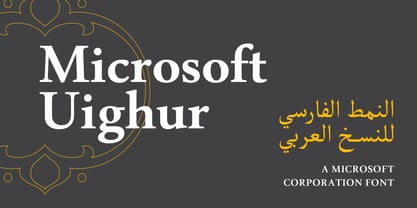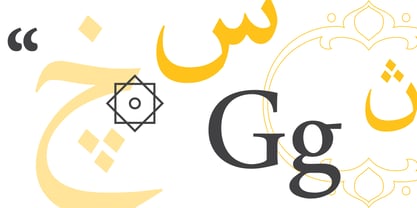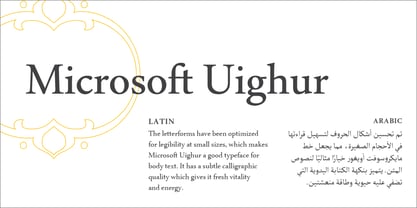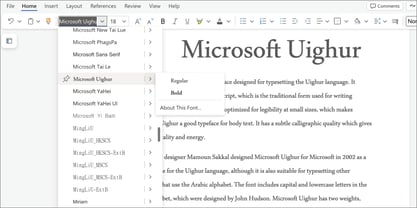
Microsoft Uighur
The Microsoft Uighur font was developed to support Uighur typography. The Uighur (or Uyghur) language is spoken in the northwest region of China, and uses the Arabic script.